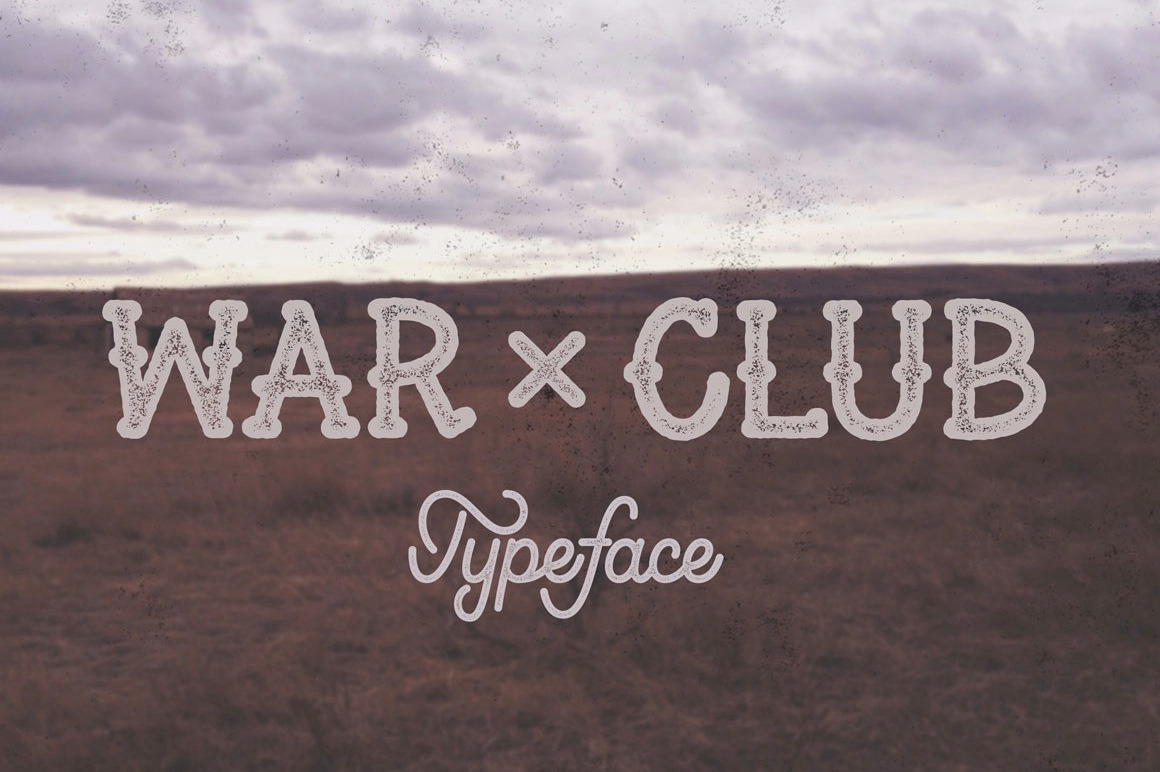
War Club Font
War Club is a rustic inspired typeface that comes in 3 styles: Regular, Rough, & Textured. Includes uppercase letters, numbers, and symbols. Ideal for hand lettered projects or logo designs that need that personal, hand-crafted feel.